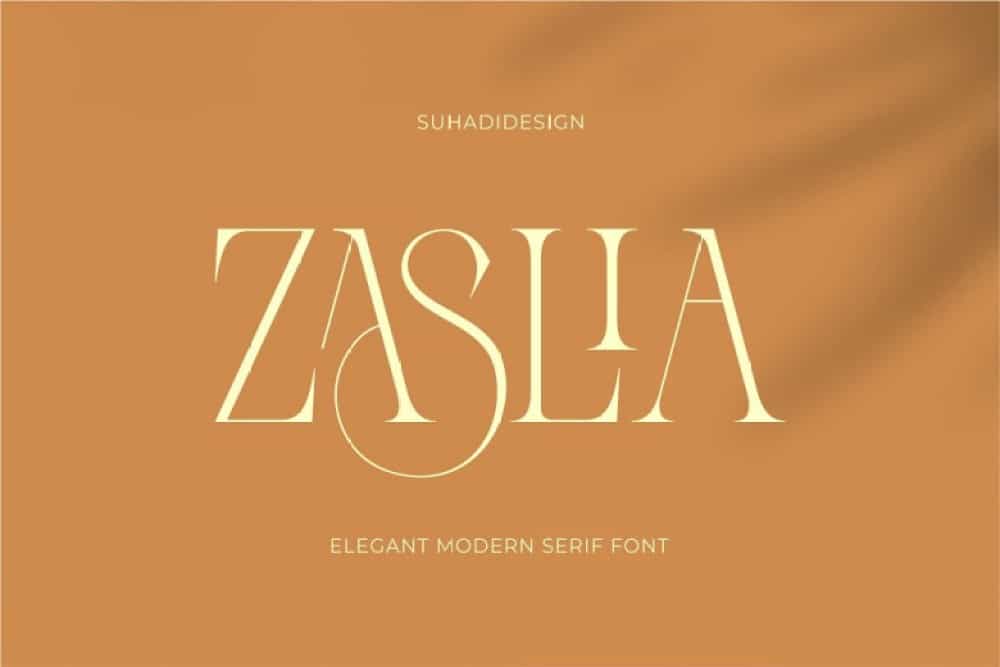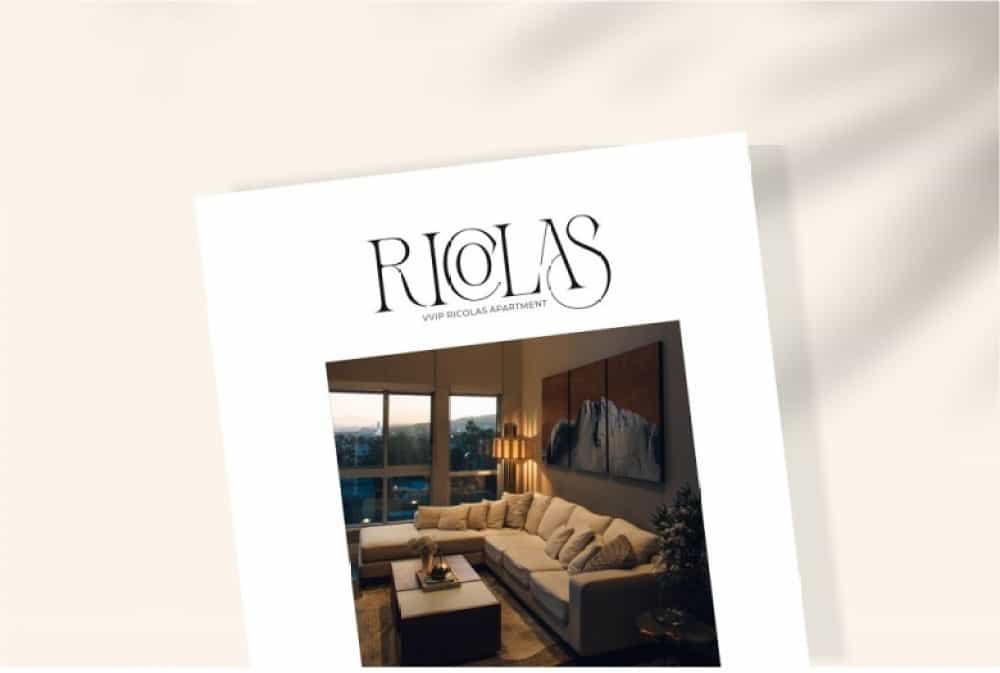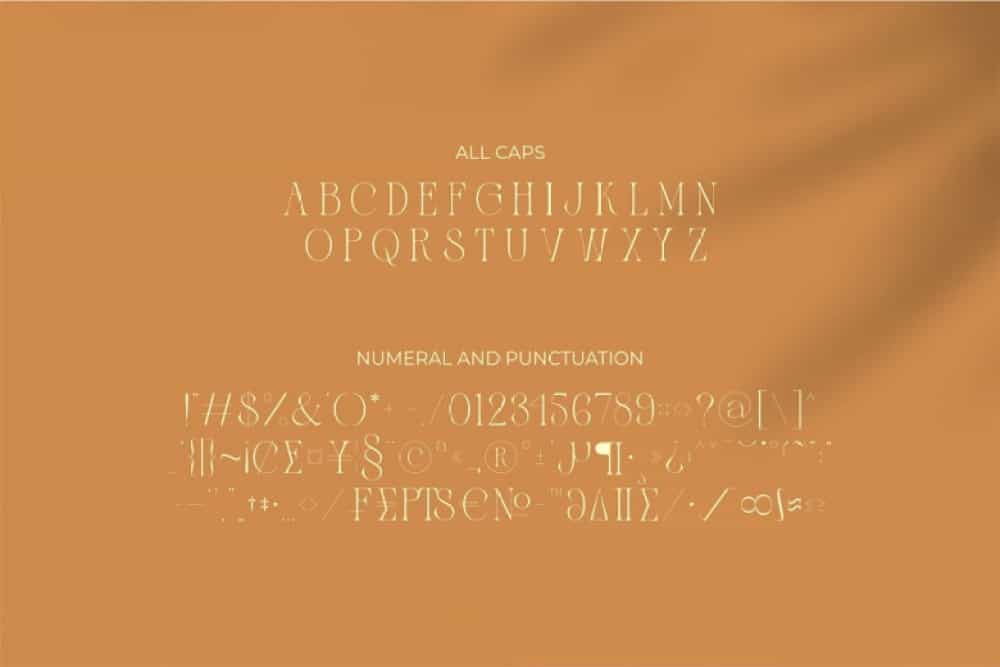
Zaslia is a modern and very elegant serif font. Featuring an exquisite design with a beautiful clasp, this model has regained the consumers’ love. This font is to be kept as sophisticated, mature, and fashionable. It is relevant for such activities as magazines, design, books, publications, branding, brand names, business cards, social media, classy design, newspapers, branding, beauty, and more. Here to serve as the best font for enhancing the quality of your designs is the Zaslia Font.